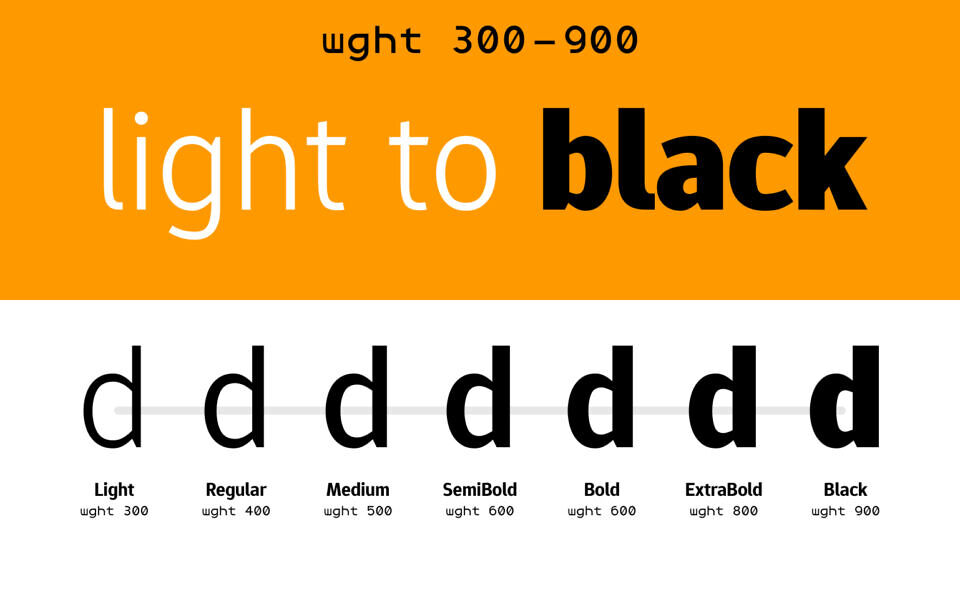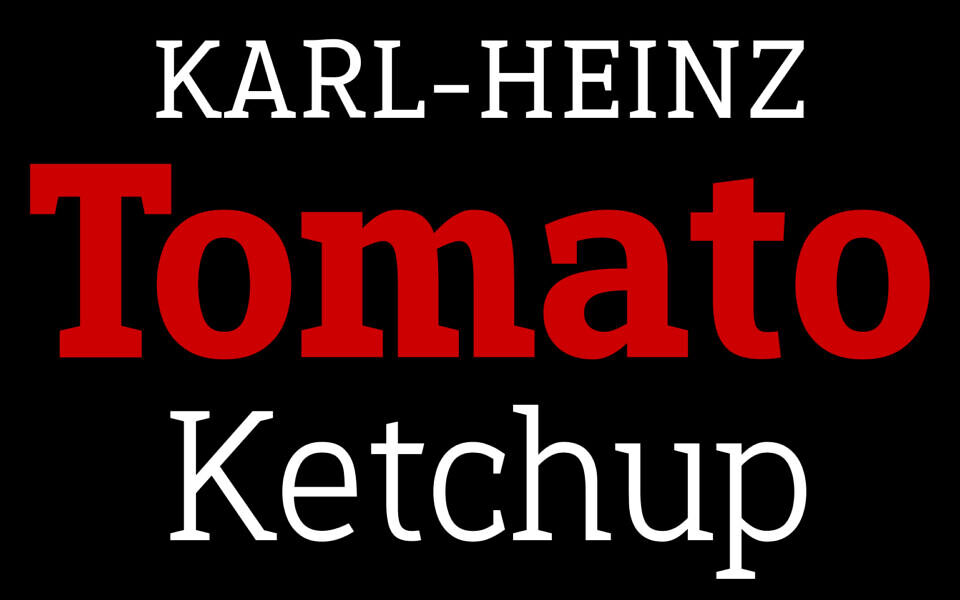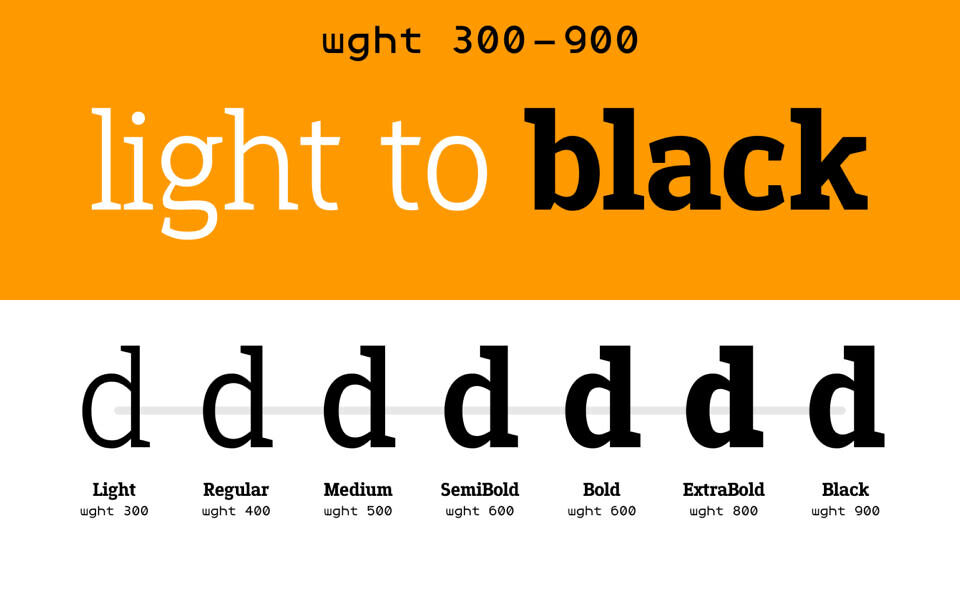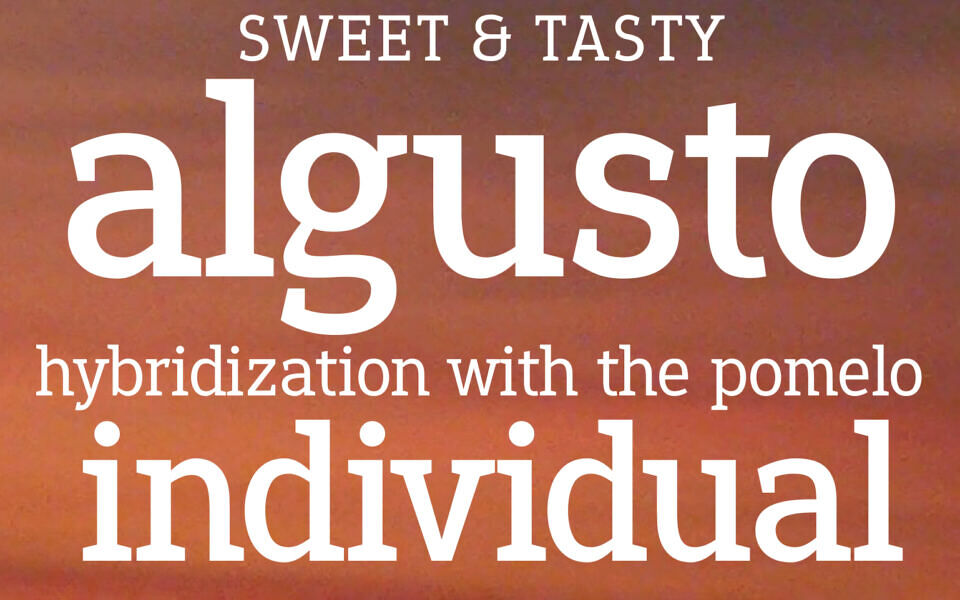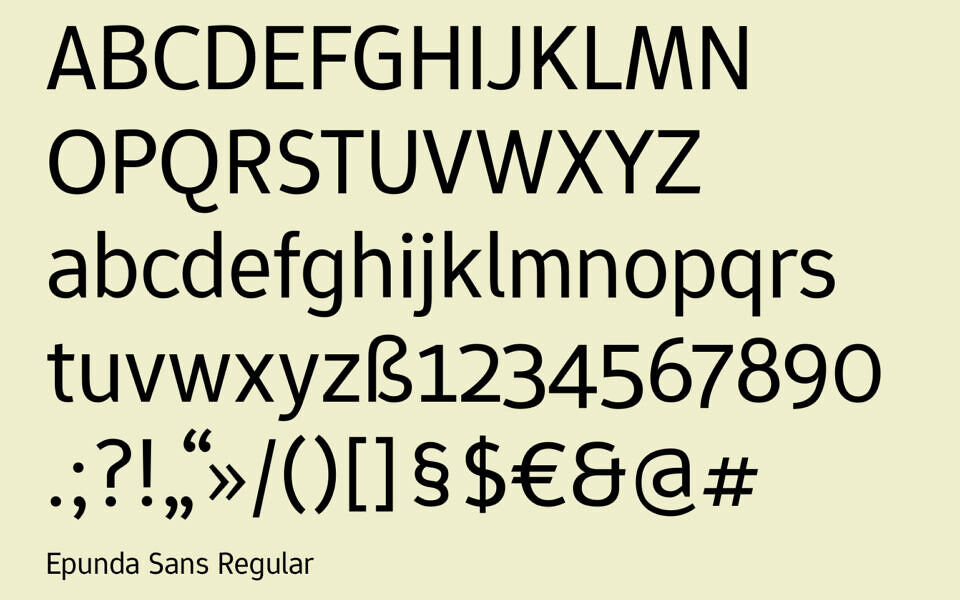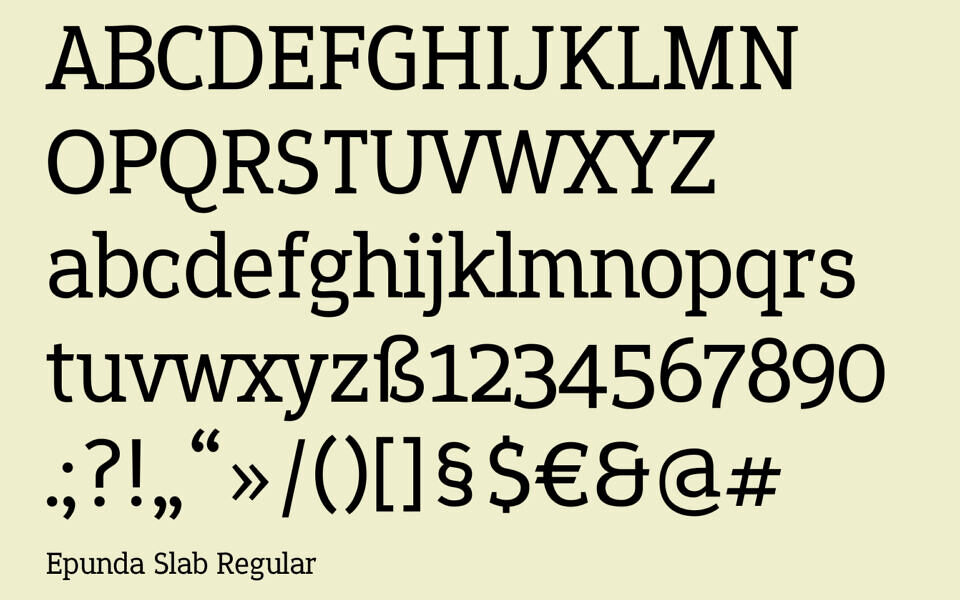
Epunda font family includes Epunda Slab Typeface & Epunda Sans Typeface.
Epunda Sans is a simple sans serif font. Its characteristic features are its slanted indentations. It is an unadorned but friendly font that remains easy to read even at small font sizes and on screens thanks to its high x-height and large interior spaces.
Epunda Sans was originally designed by Simon Atzbach in 2007, based on the completely symmetric Epunda. In 2022 it was redesigned as a variable font.
Epunda Slab is the perfect companion of Epunda Sans. The sturdy, angled serifs give the font a robust and traditional look.
The variable font has a weight axis that ranges from Light (300) to Black (900).